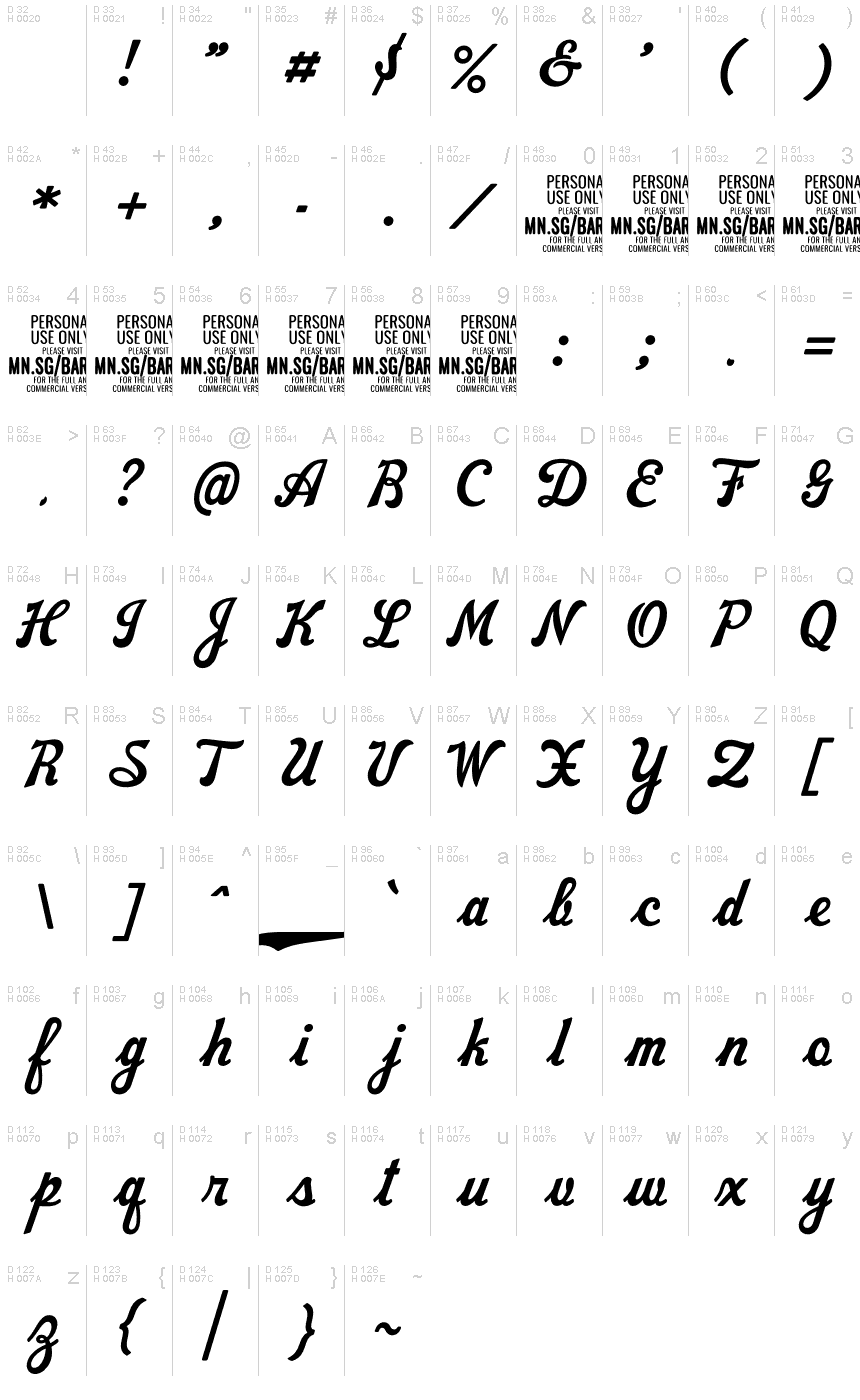
Barney Rounded PERSONAL USE Regular
Barney Rounded font is a retro script typeface designed by Mans Greback.
Use underscore _ to make a swash.
Example: Letter_
Use multiple underscores to make longer swashes.
Example: Football____